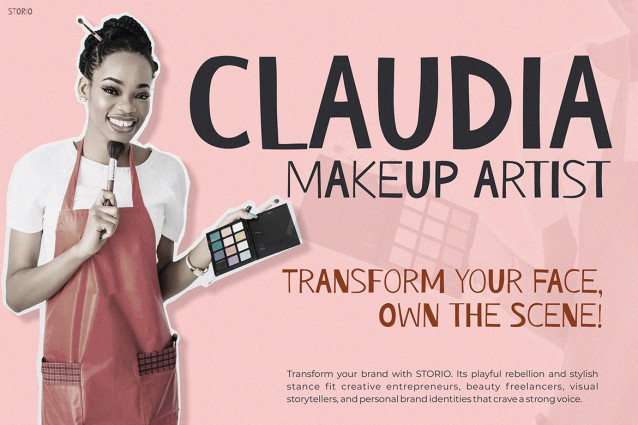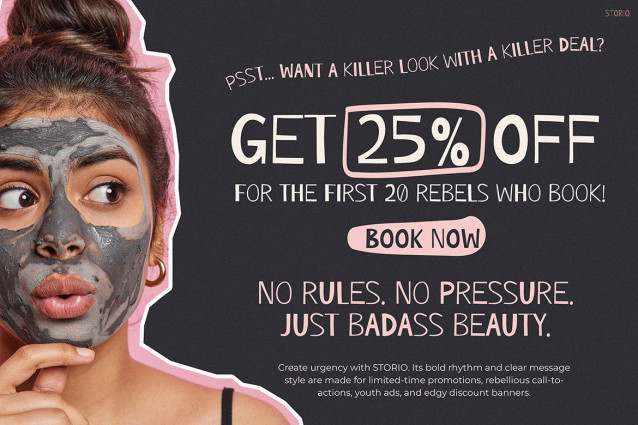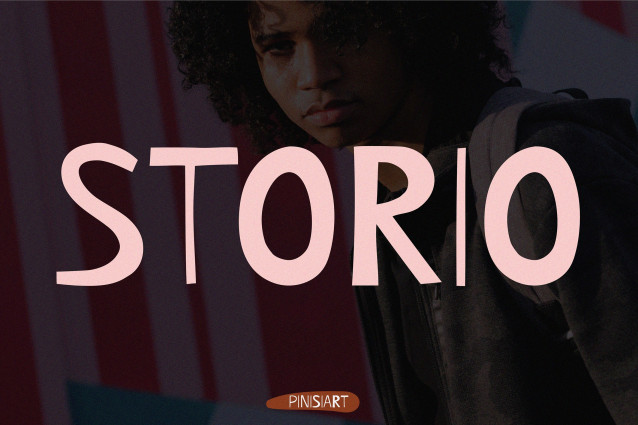
Storio Playful Font
Storio Playful Font is a bold and playful typeface designed to make your visuals stand out. With its rebellious curves, hand-drawn vibe, and slightly irregular shapes, this font speaks the language of freedom and fierce individuality. Not only does it command attention, but it also injects personality into every design. Consequently, it’s a perfect choice for creators who want to break away from the ordinary.
Moreover, the aesthetic appeal of Storio lies in its raw charm—it’s imperfect yet polished, energetic yet readable. Whether you’re designing bold headlines or edgy promotional content, Storio adds an unmistakable voice to every word. As a result, your audience won’t just see your message—they’ll feel it. Additionally, the font’s handcrafted look makes it ideal for delivering authentic, emotion-driven content.
Storio masterfully blends hand-drawn expressiveness with a structured display style. Thus, it delivers clarity while maintaining a quirky, edgy twist. This balance makes it perfect for slogans, quotes, promo banners, and brand-driven content. In fact, Storio truly comes alive when paired with strong visuals—especially in formats like Instagram posts, YouTube thumbnails, and street-style campaigns.
Furthermore, the font was designed with flexibility in mind. It works well in both all-caps and mixed case layouts. Thanks to its exaggerated proportions and unique letterforms, every word you type will carry a distinct tone. So, whether you’re announcing a flash sale or launching a bold brand, Storio gives your message an unapologetic voice.